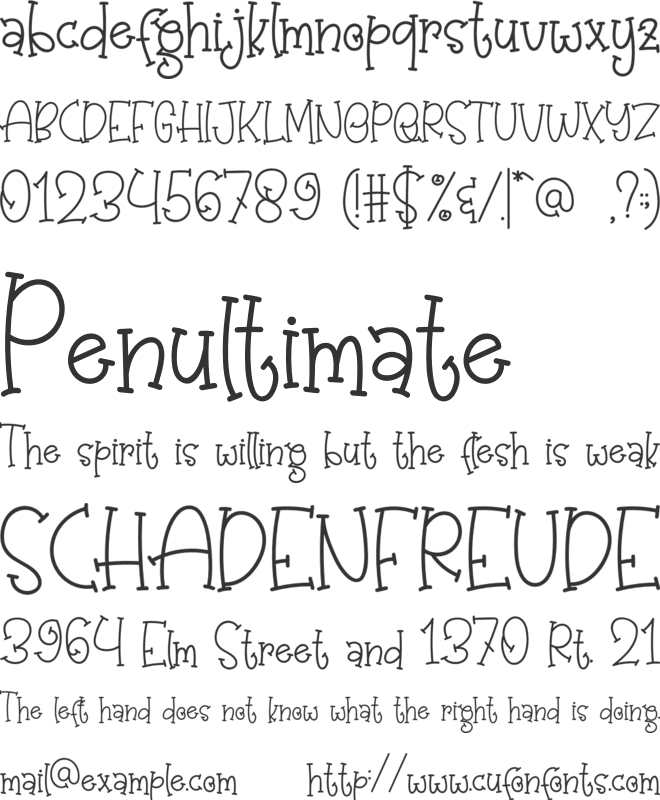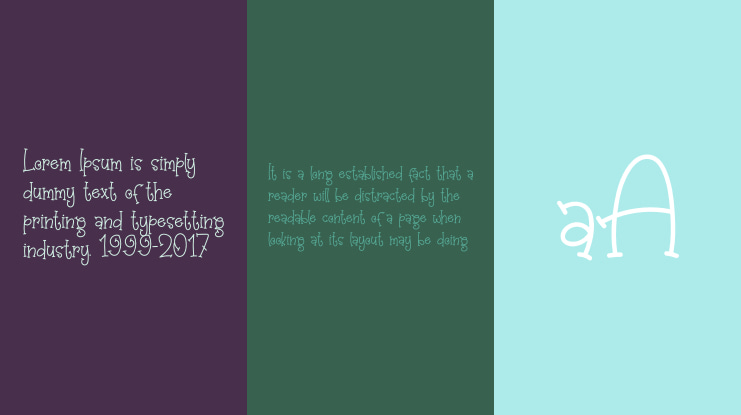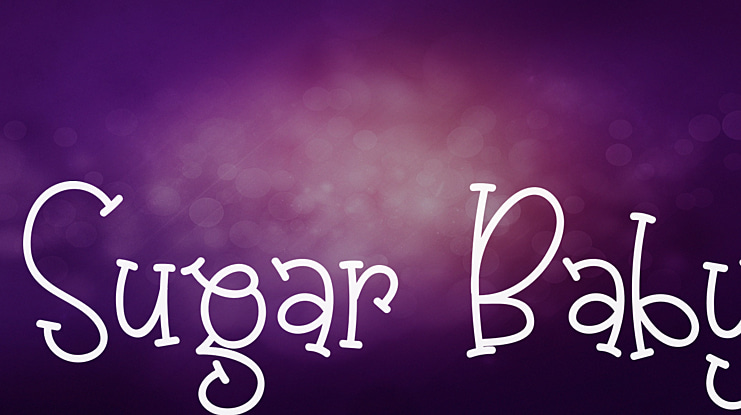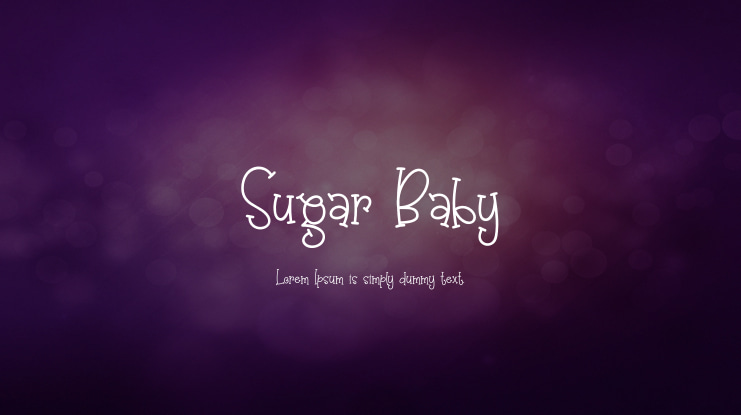
Sugar Baby Font
Sugar Baby is a relaxed and quirky handwritten font. It is the best choice for creating eye catching logos, branding and quotes. Every letter has a unique and beautiful touch, which will make your design come alive!